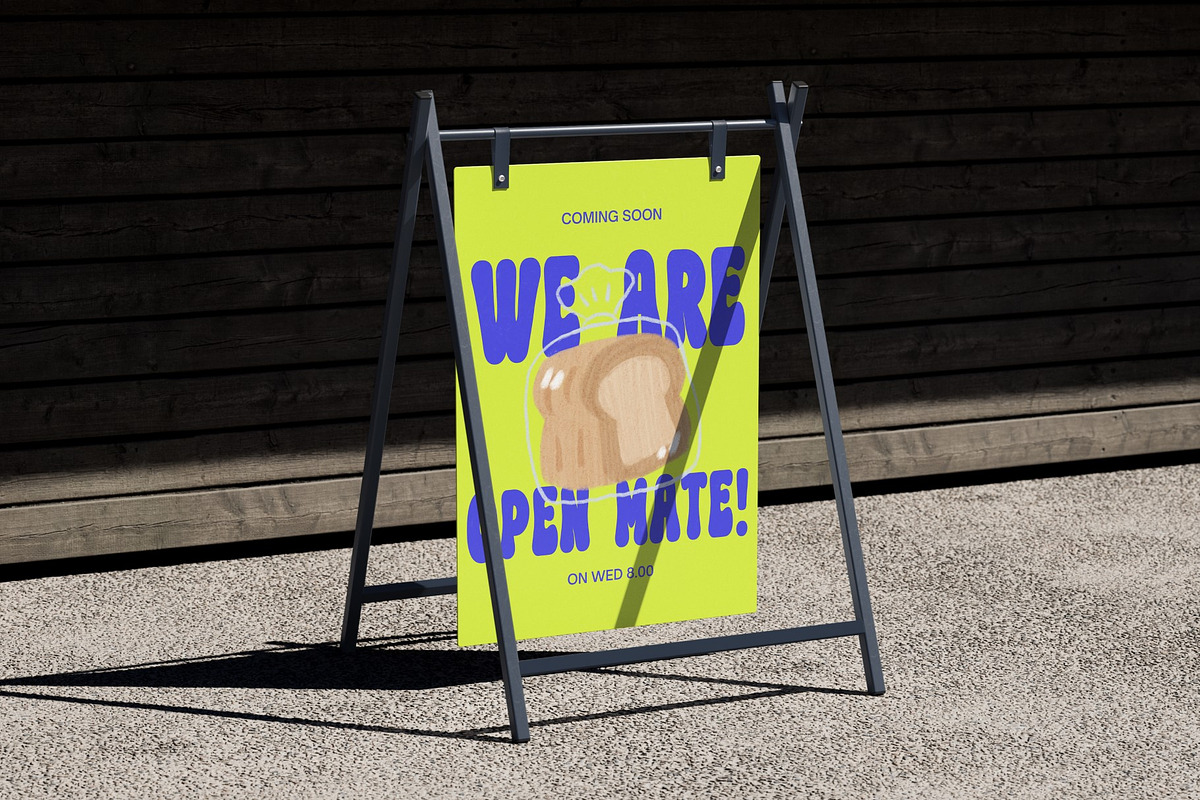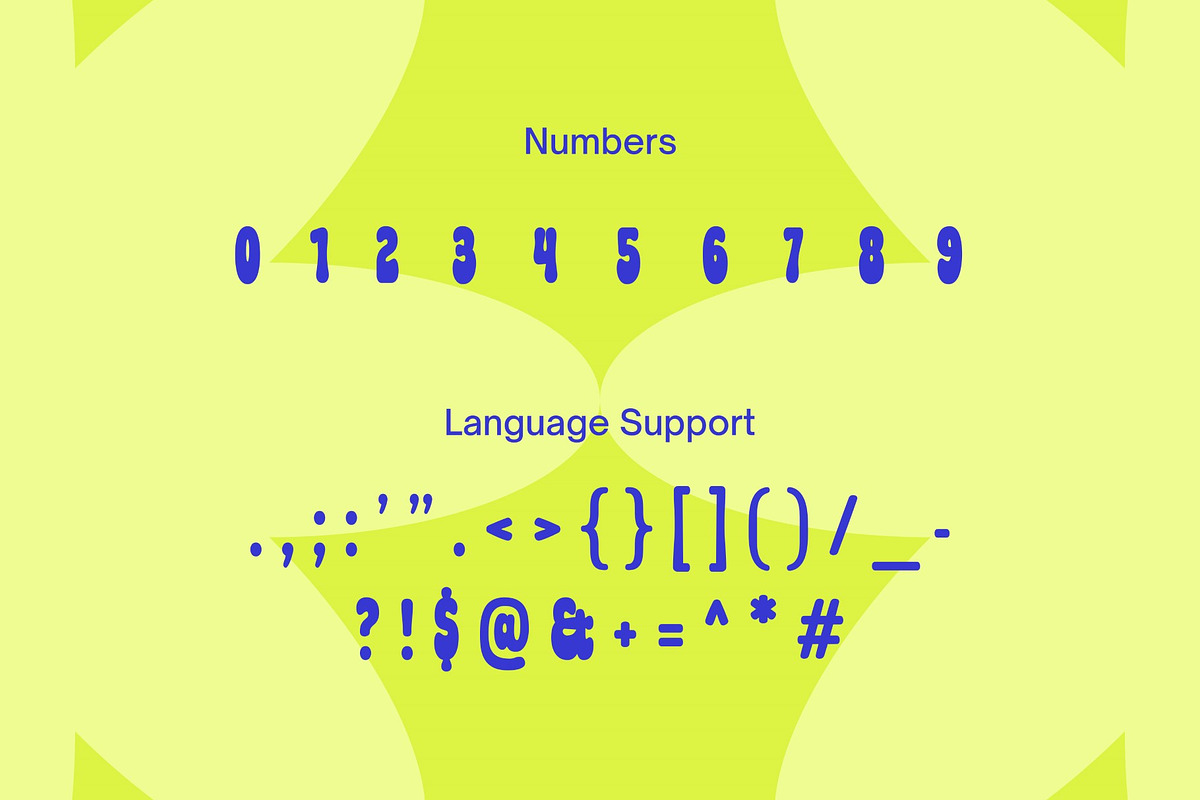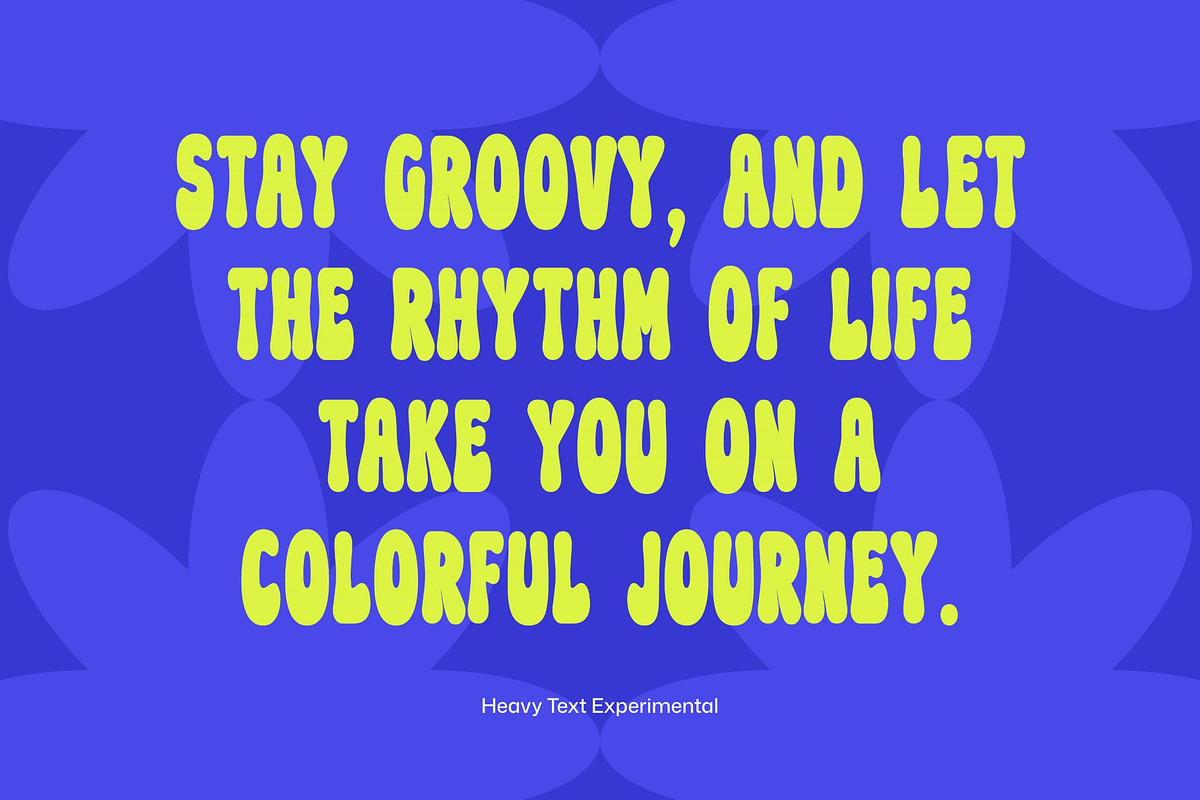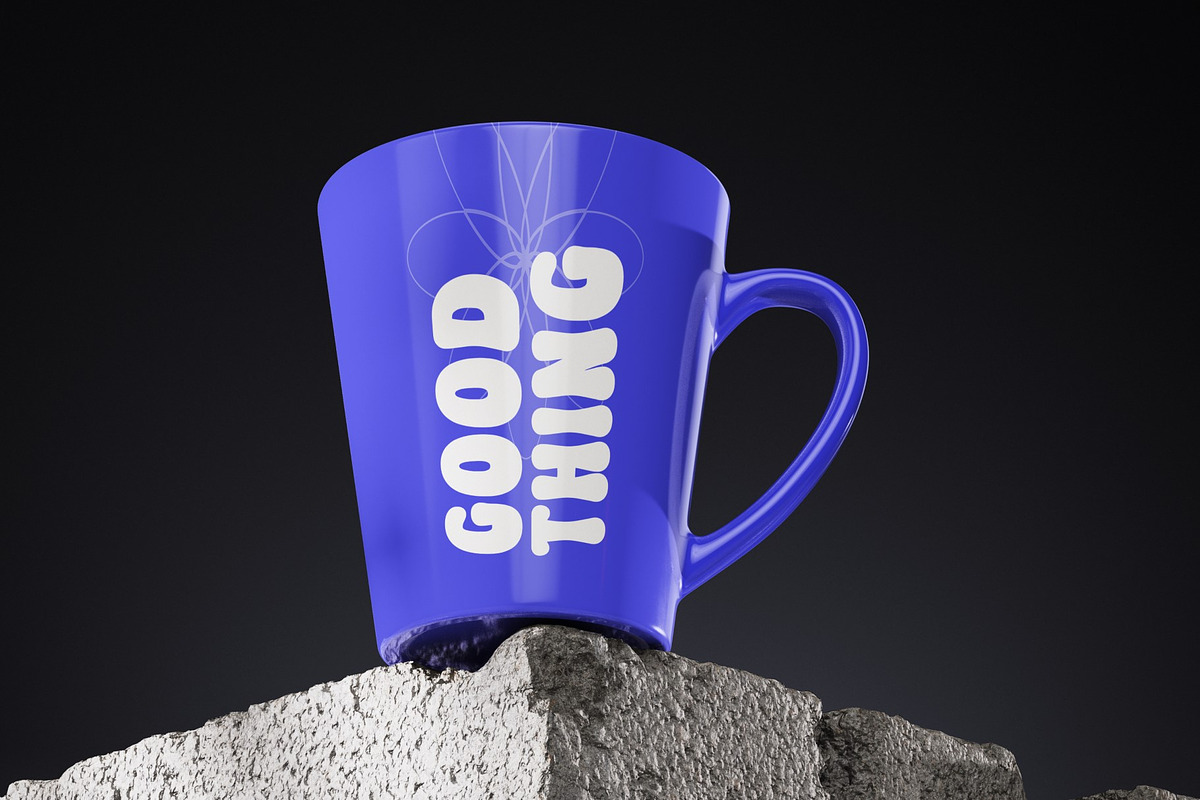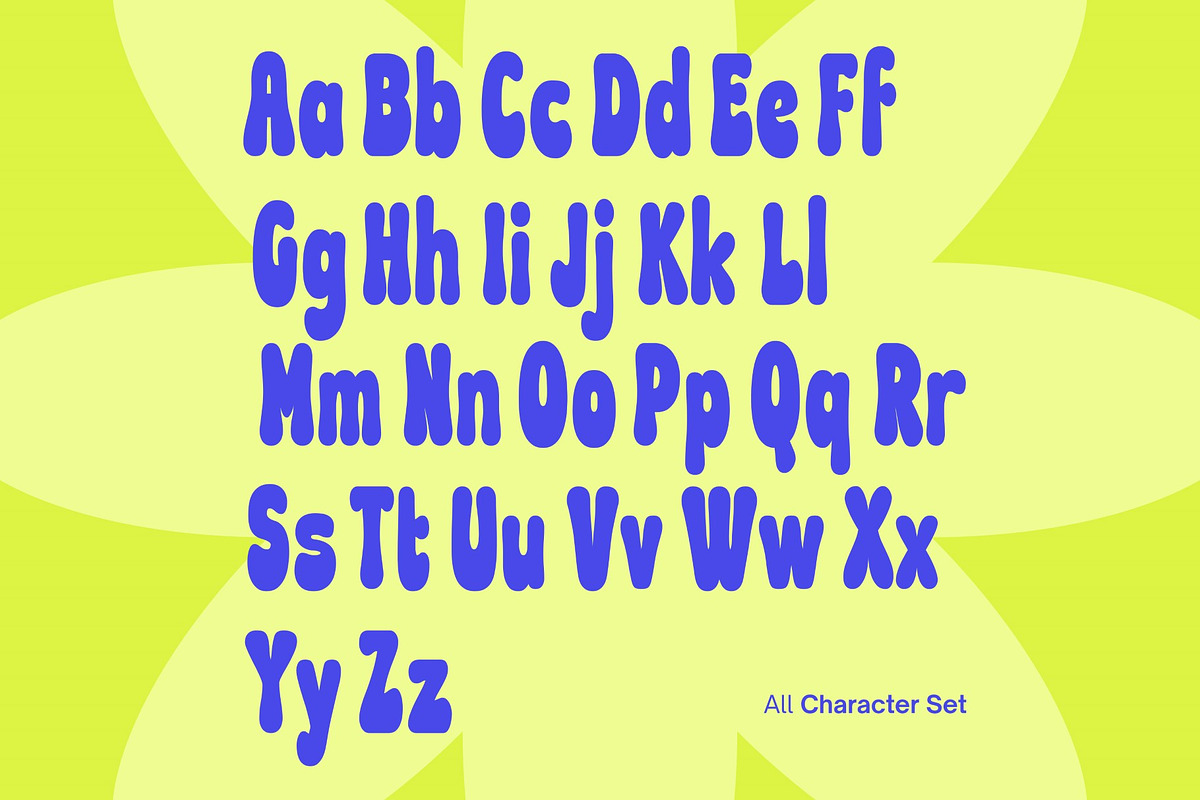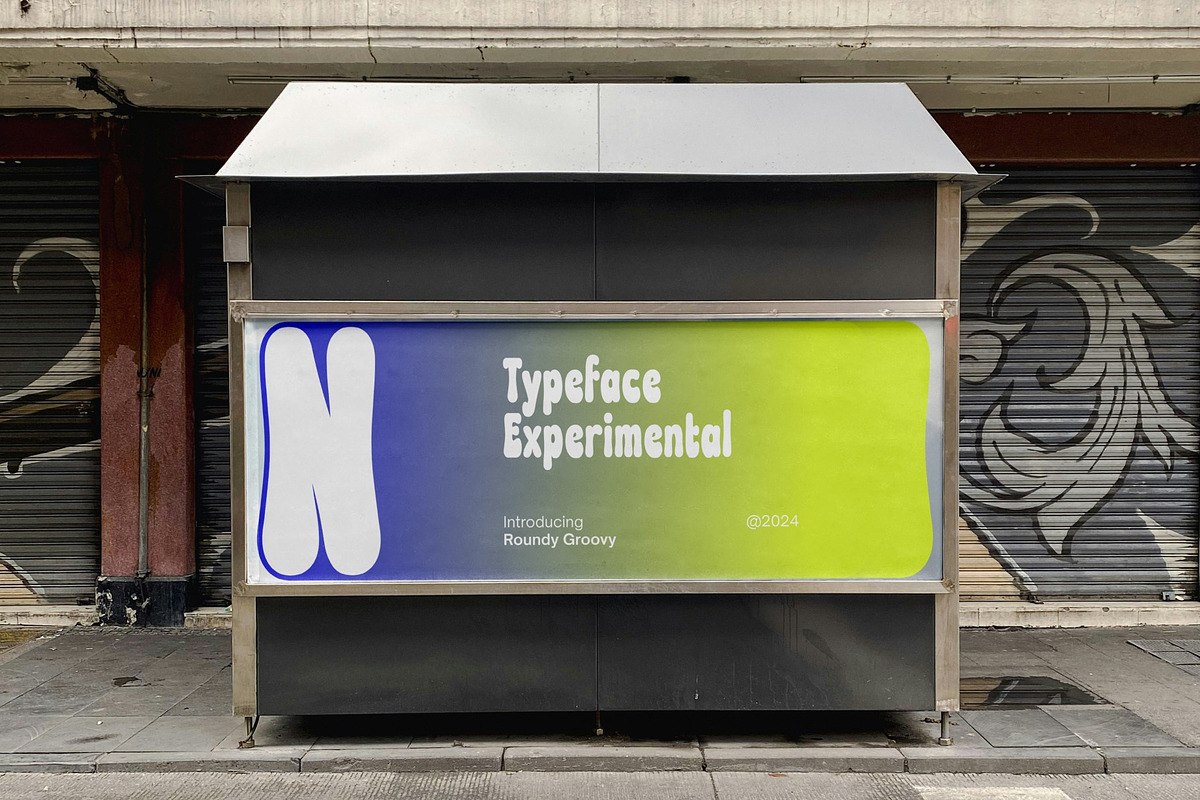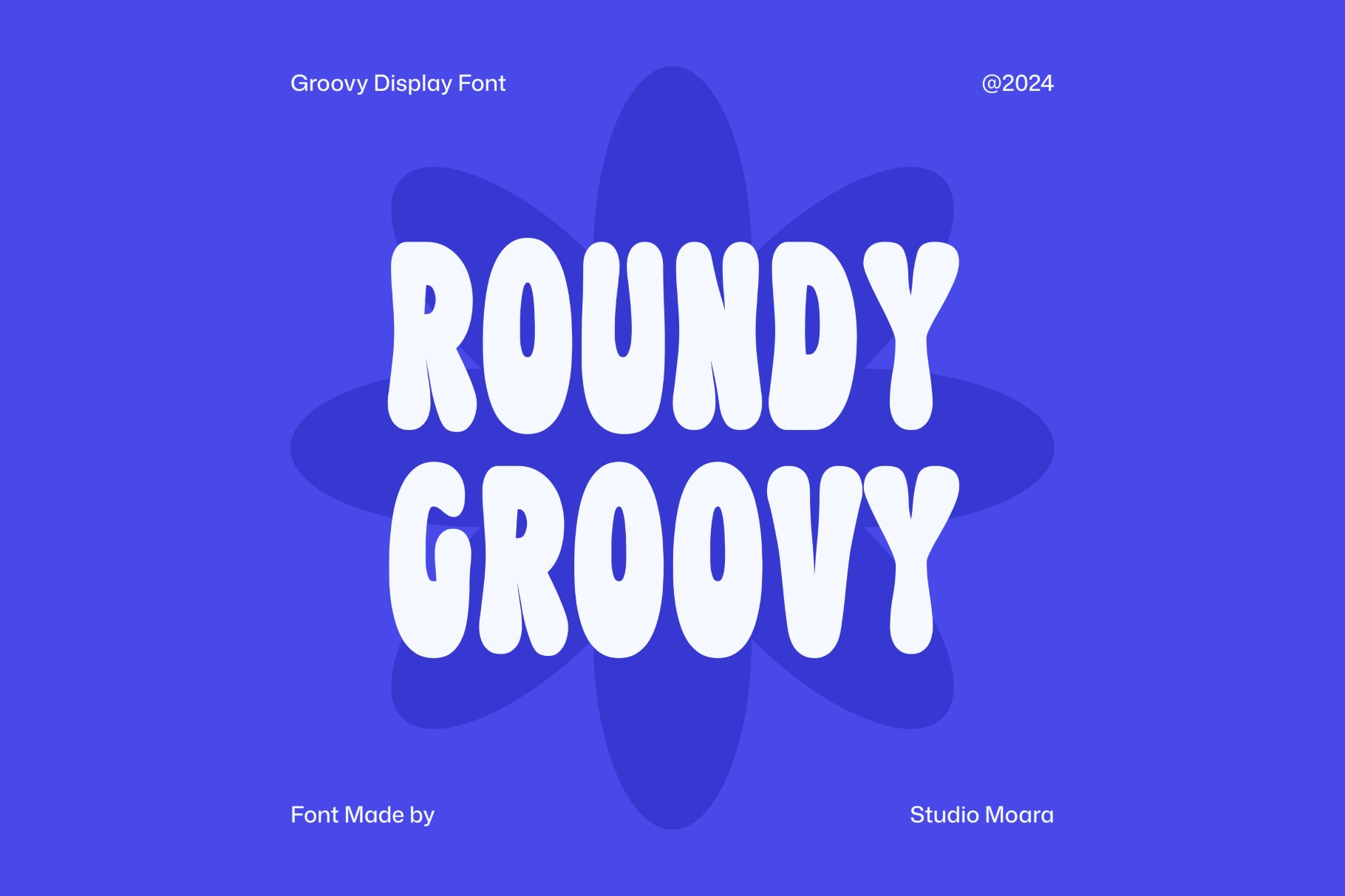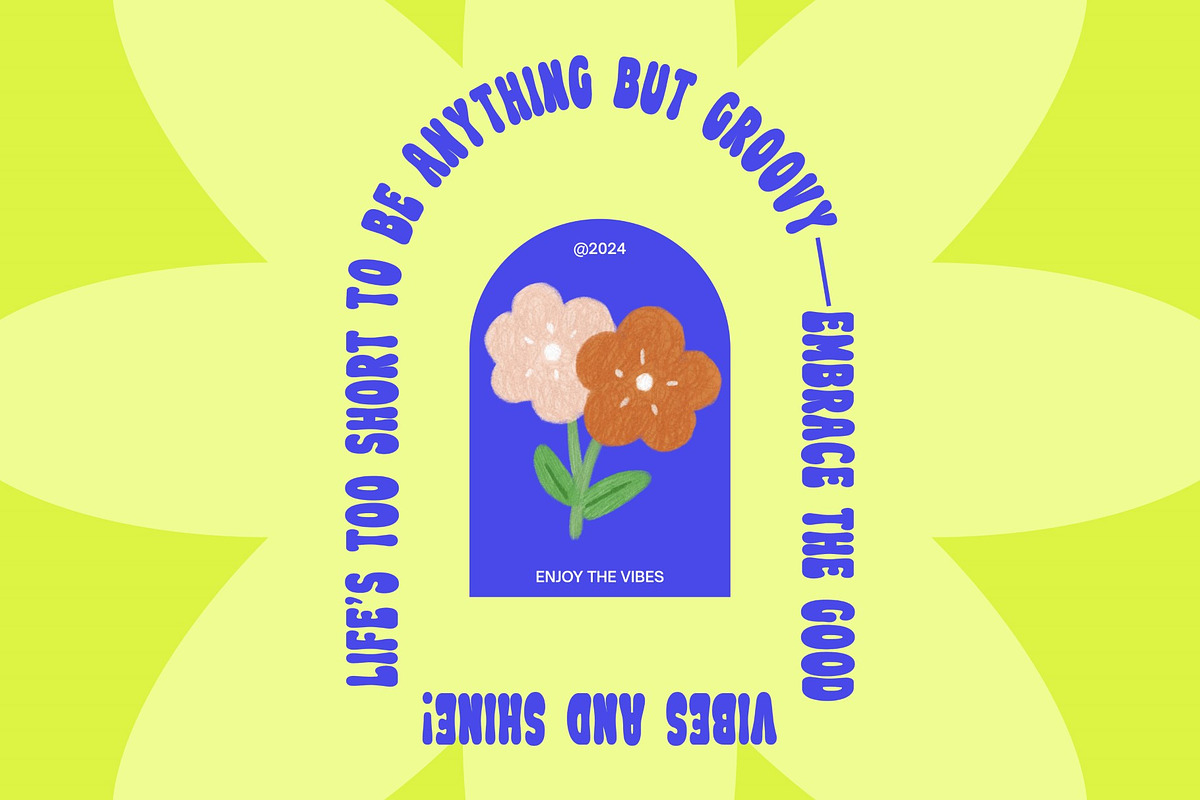
Roundy Groovy - Groovy Display Font
Roundy Groovy is a fun and playful display font inspired by fruits like mangoes and lemons. Its smooth, circular characters and bold design will add a touch of retro charm to your designs. This versatile font is perfect for creating logos, signage, packaging, menus, and more! Let Roundy Groovy bring a slice of sunshine to your next project.